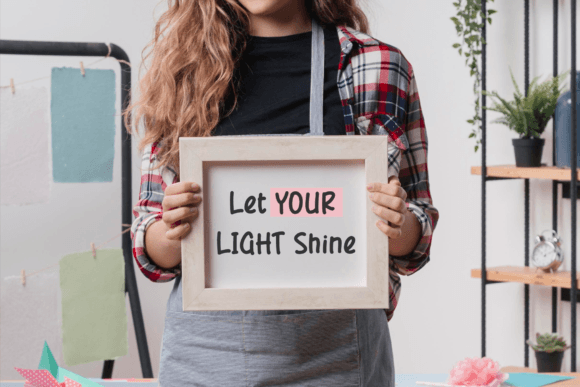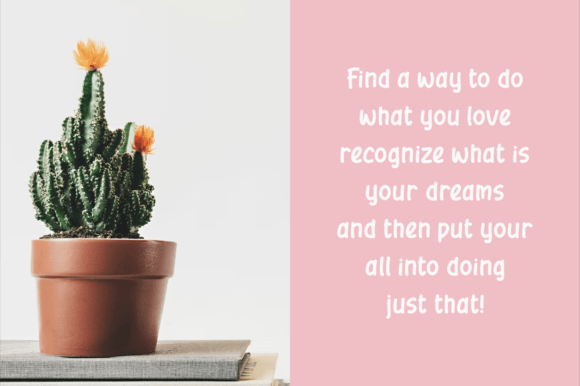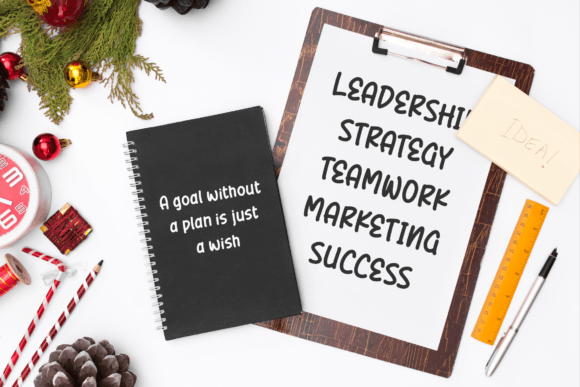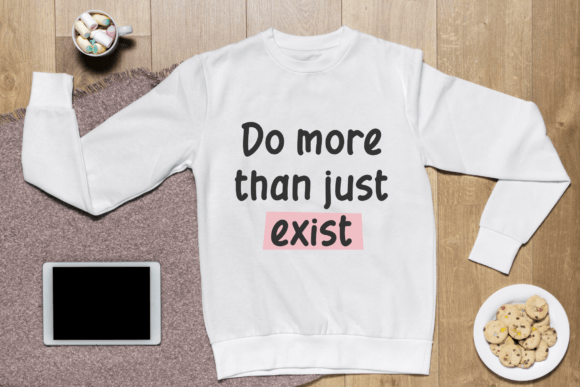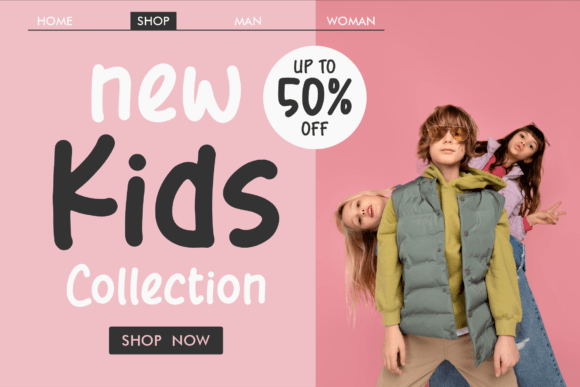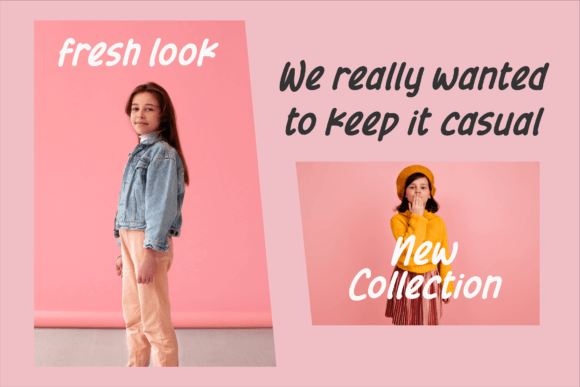
Discover the Quirky Charm of Kisbridge Cartoon Font
Have you ever been brainstorming ideas for a project, and suddenly a spark of creativity hits you? Maybe it’s a bold color combination, or a unique typography choice. For designers, those ‘aha’ moments are what make the job so exciting. And, for me, one of those moments was when I stumbled upon the delightful Kisbridge Cartoon Font. This quirky handwritten font is the perfect blend of whimsy and elegance, making it suitable for a wide range of projects.
Whether you’re working on logos, branding projects, or product packaging, Kisbridge Cartoon Font adds a touch of personality to any design. Its value lies in its versatility and the way it can evoke emotions in the viewer. For designers, having access to a font like Kisbridge Cartoon Font can be a game-changer, allowing you to bring your creative vision to life in a more expressive and engaging way.
Kisbridge Cartoon Font Key Features
- Unique Characteristics: The Kisbridge Cartoon Font features a playful, hand-drawn style with rounded edges and subtle imperfections, giving it a charming and approachable feel.
- Letterforms and Ligatures: The font includes a wide range of letterforms and ligatures, ensuring that text is easy to read and visually appealing.
- Style Options: Available in both regular and bold weights, allowing designers to create contrast and emphasis in their designs.
Kisbridge Cartoon Font Review
I recently had the chance to work with the Kisbridge Cartoon Font, and I have to say, it’s a mixed bag. On the one hand, there are some aspects of this font that I really enjoy.
- ✨ Unique Character: The Kisbridge Cartoon Font has a distinctive, playful feel that’s perfect for projects that need a bit of whimsy.
- ✨ Customization Options: The font comes with a range of customization options, from font sizes to line spacing, which makes it easy to get the look you want.
On the other hand, there are some limitations that might make it less suitable for certain projects.
- ⚠️ Limited Legibility: At smaller font sizes, the Kisbridge Cartoon Font can be a bit hard to read, which might make it difficult for users with visual impairments.
- ⚠️ Limited Character Set: The font’s character set is relatively limited, which might make it difficult to use for projects that require a lot of special characters.
Overall, I think the Kisbridge Cartoon Font is a great choice for projects that need a bit of personality, but it’s not the best option for projects that require a lot of customization or legibility.
Kisbridge Cartoon Font: A Practical Application Guide
Tips for Getting the Most Out of the Kisbridge Cartoon Font
To get the most out of the Kisbridge Cartoon Font, use it for playful and creative designs, such as children’s books, party invitations, or social media graphics. Experiment with different font sizes, colors, and styles to add visual interest to your design.
The Kisbridge Cartoon Font is ideal for:
- Social media graphics and memes
Alternatives to Kisbridge Cartoon Font
Bebas Neue is a sans-serif font with a bold, playful feel. It’s ideal for use in logos, headings, and titles where you want to convey a sense of energy and friendliness. Bebas Neue has a more modern and sleek look compared to Kisbridge Cartoon Font, which is more cartoonish and nostalgic.
Great Vibes is a script font with a relaxed, casual feel. It’s perfect for use in body text, headings, and titles where you want to convey a sense of creativity and playfulness. Great Vibes has a more fluid and cursive look compared to Kisbridge Cartoon Font, which is more blocky and geometric.
Playfair Display is an elegant, high-end font with a luxurious feel. It’s ideal for use in titles, headings, and body text where you want to convey a sense of sophistication and refinement. Playfair Display has a more formal and traditional look compared to Kisbridge Cartoon Font, which is more casual and playful.